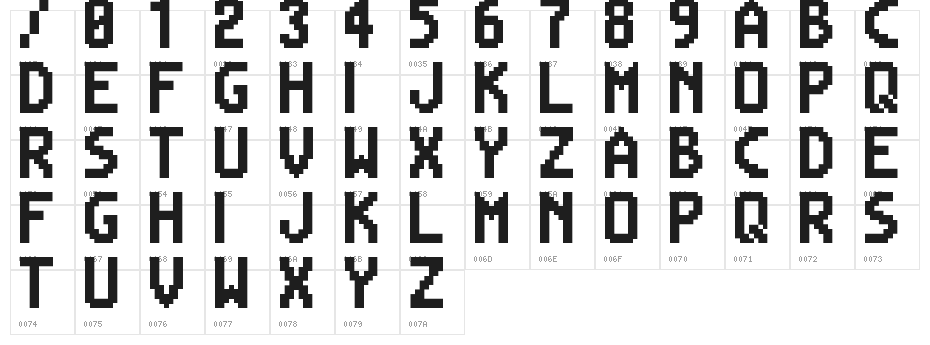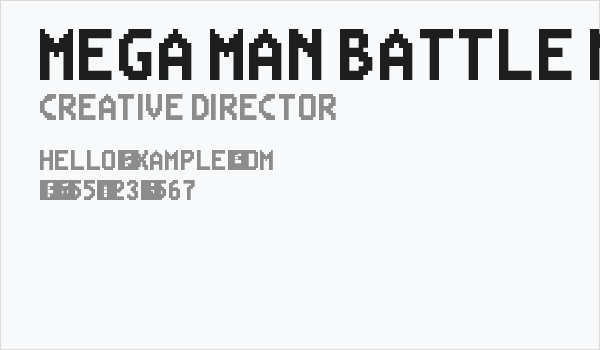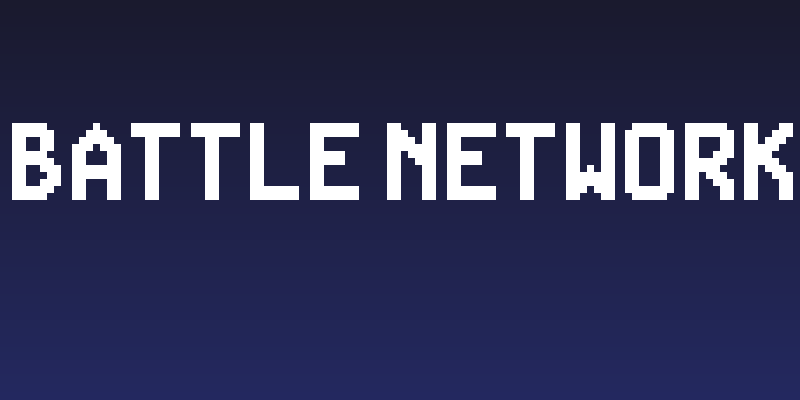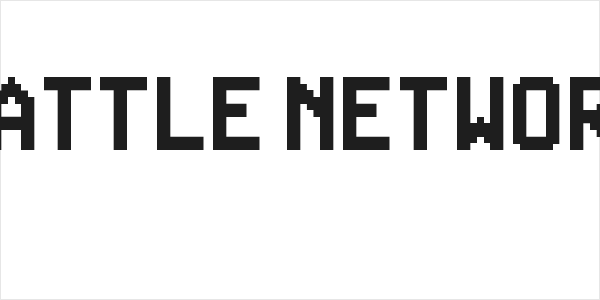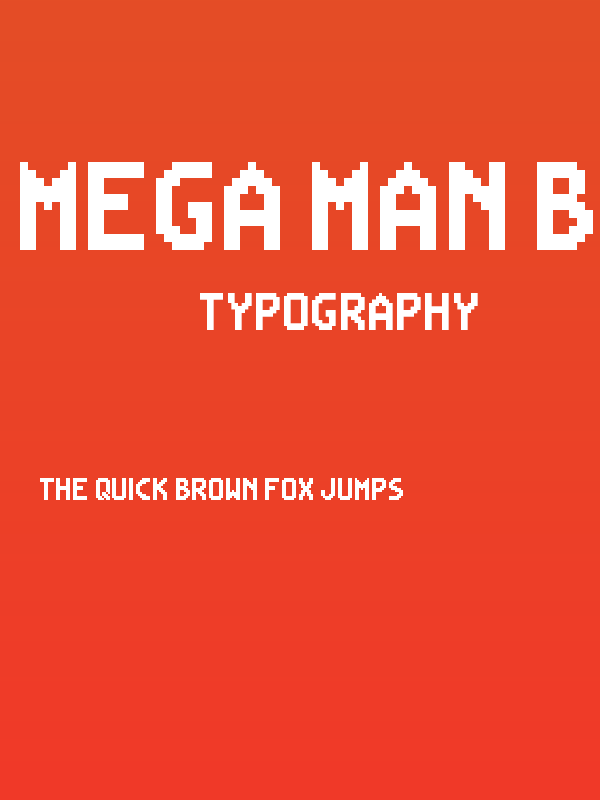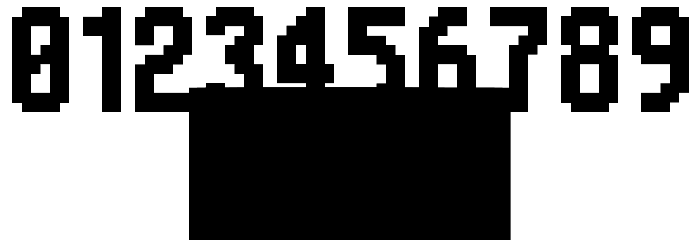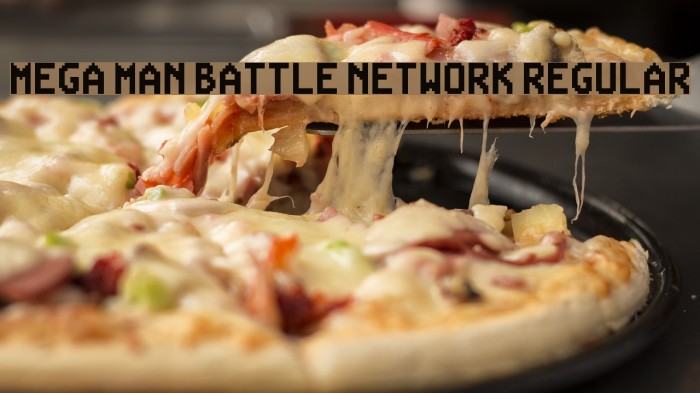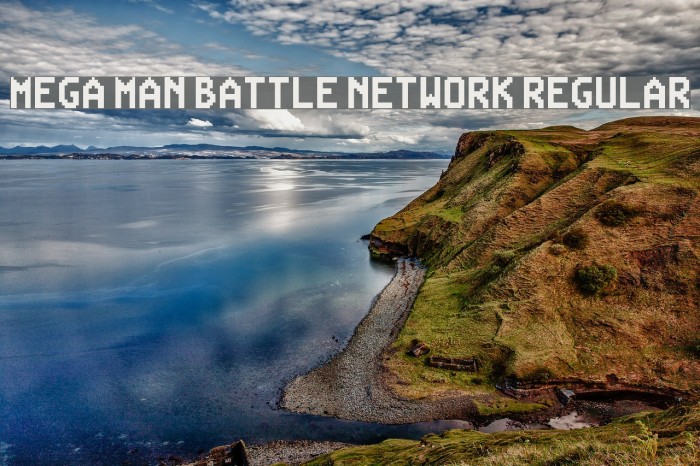
Mega Man Battle Network Regular Font
Mega Man Battle Network Regular Description
This font features a bold, pixelated style reminiscent of classic video game graphics. Each character is constructed with a blocky, geometric design, creating a retro digital aesthetic. The uniformity in height and width across the characters gives it a monospaced appearance, although it is not strictly monospaced. The uppercase letters are prominent and clear, while the numbers maintain the same pixelated style, ensuring consistency throughout. The font's simplicity and nostalgic feel make it ideal for projects that aim to evoke a sense of early digital or arcade culture.
| Use Case | Headlines, Logos, Digital Art |
| Proposed Projects | Ideal for video game designs, retro-themed posters, digital art, and any project requiring a nostalgic digital feel. |